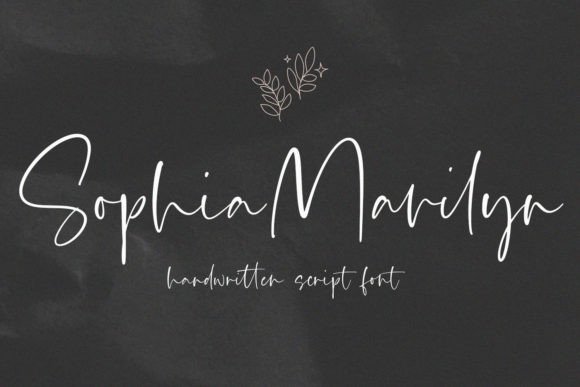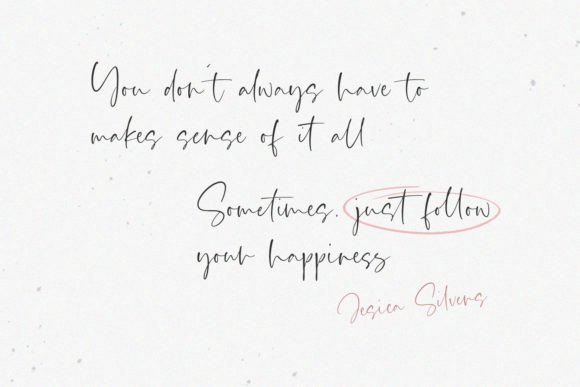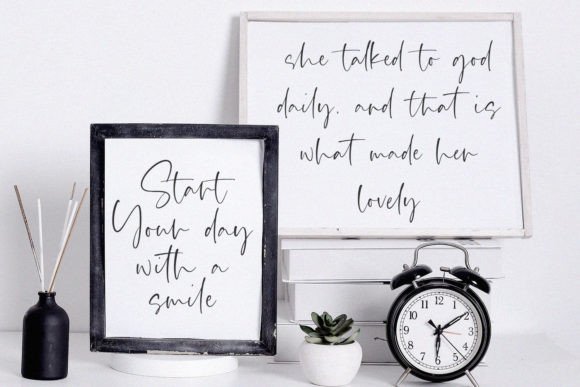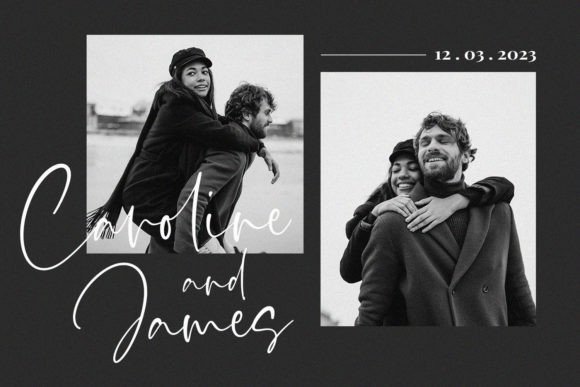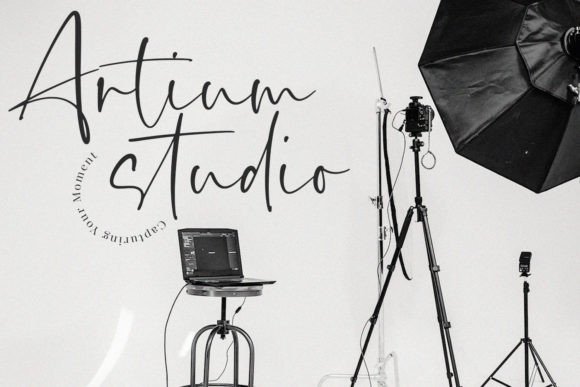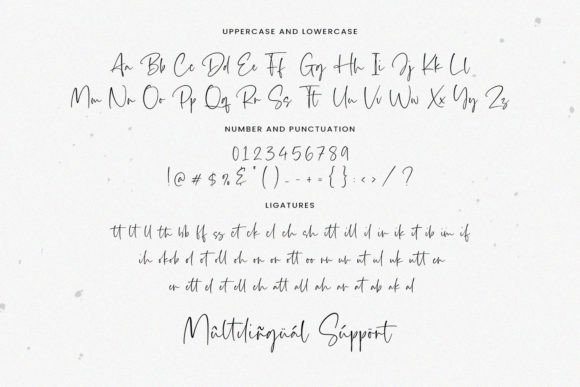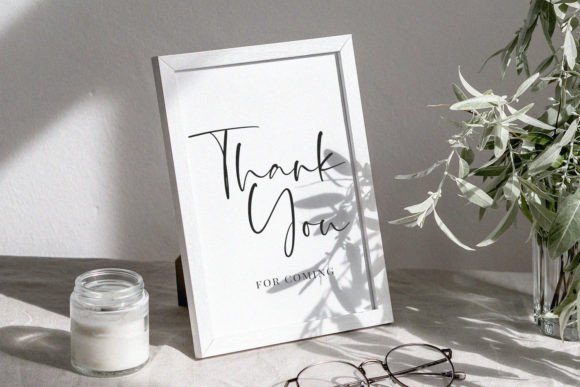
Sophia Marilyn Font
Sophia Marilyn is an elegant handwritten script font designed with great care to meet all your creative needs. This font shines in various design projects, including product packaging, branding, magazines, social media posts, weddings, and even as expressive text overlays on backgrounds. Its smooth and natural strokes bring a personal and warm touch to any design.
The versatility of Sophia Marilyn makes it a fantastic choice for designers seeking a font that combines style and readability. Whether you are creating eye-catching packaging or sophisticated branding materials, this font adds charm and personality. It also works beautifully for social media graphics and wedding invitations, where a delicate and inviting script is needed.
Sophia Marilyn offers a natural flow and fluidity that mimics real handwriting, providing authenticity to your work. This makes it ideal for projects that require a friendly and approachable aesthetic. Furthermore, the font’s balanced letterforms ensure that your message is clear while maintaining a stylish flair.
In addition to its beauty and usability, Sophia Marilyn supports a wide range of glyphs and alternates, giving you the flexibility to customize your text for unique visual effects. Its compatibility with popular design software ensures a smooth workflow for creative professionals.
Overall, Sophia Marilyn font is a valuable asset for any designer looking to add a handcrafted, elegant, and versatile script to their font collection. It helps bring warmth, personality, and sophistication to your projects, making it a top choice for various design applications.